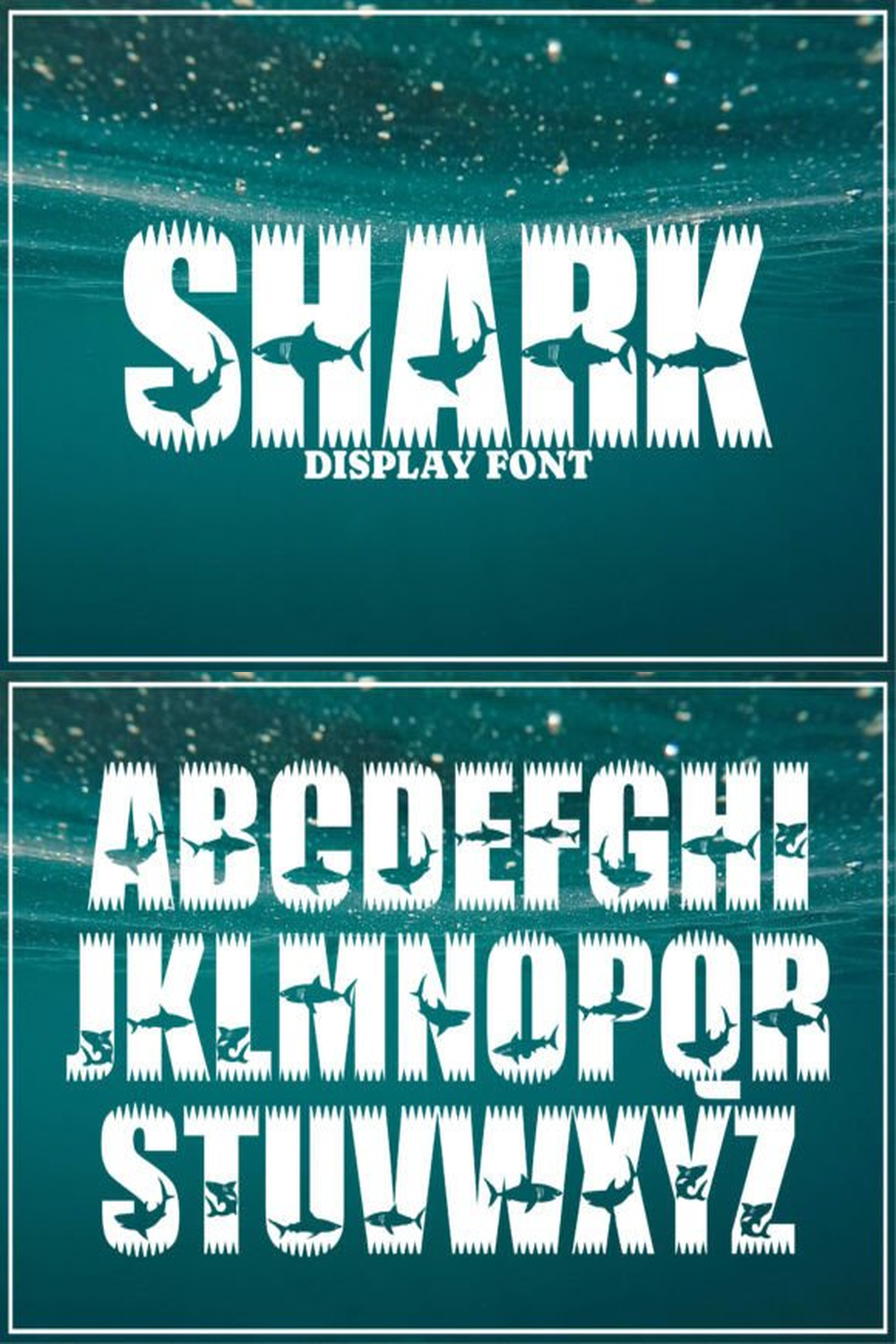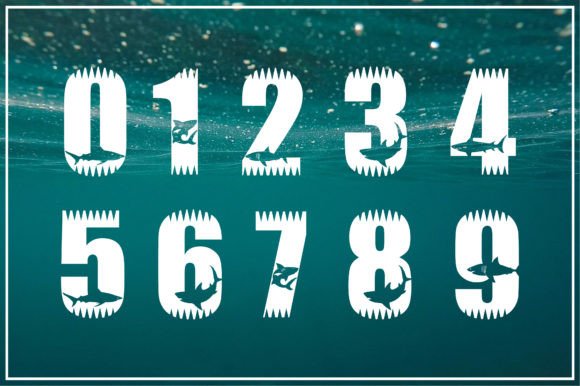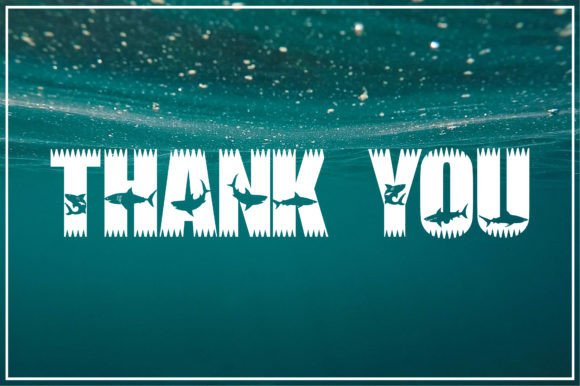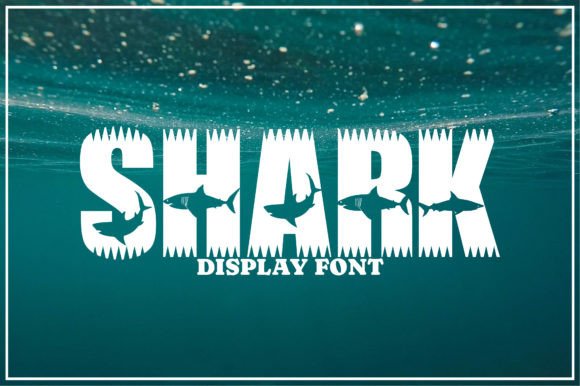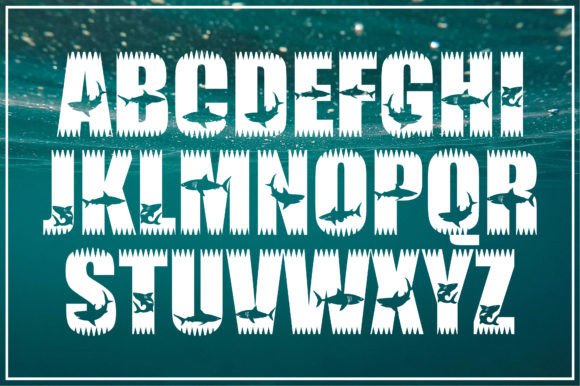
Shark Font
About the Shark Font
Explore the possibilities with Shark Font, a font that offers both beauty and functionality. Shark is a and dramatic decorative font. It is perfectly suitable for any design or crafty idea! Add it confidently to your projects and you will love the results!